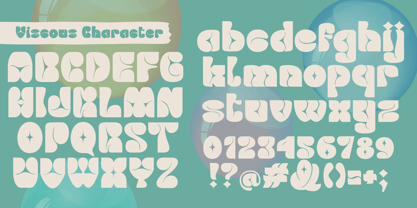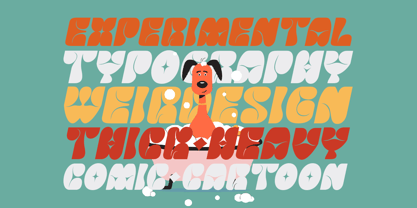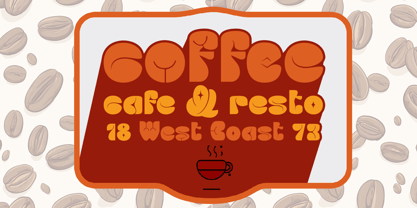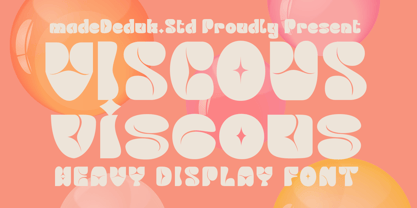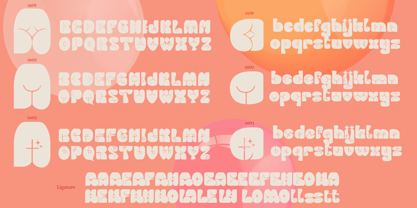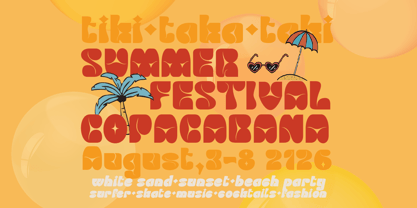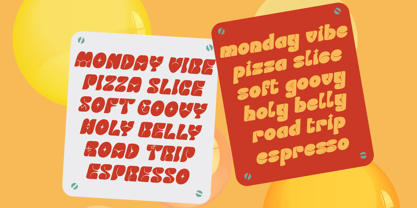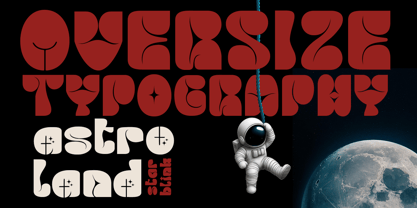
Viscous
by madeDeduk
The Viscous Font Family was designed by madededuk and published by madeDeduk. Viscous contains 2 styles and family package options. More about this family
Introducing Viscous font, a bold typeface that exudes confidence while maintaining a warm impression. This font enhances text visibility, making it striking and appealing, often used to highlight important terms, titles, and subtitles for improved information clarity. Perfect for a wide range of applications, including book titles, branding, product packaging, invitations, quotes, labels, posters, and logos, Viscous is a powerful choice for any creative endeavor. With its various weights and OpenType features, it offers versatility for both digital and print media, ensuring your message stands out beautifully.